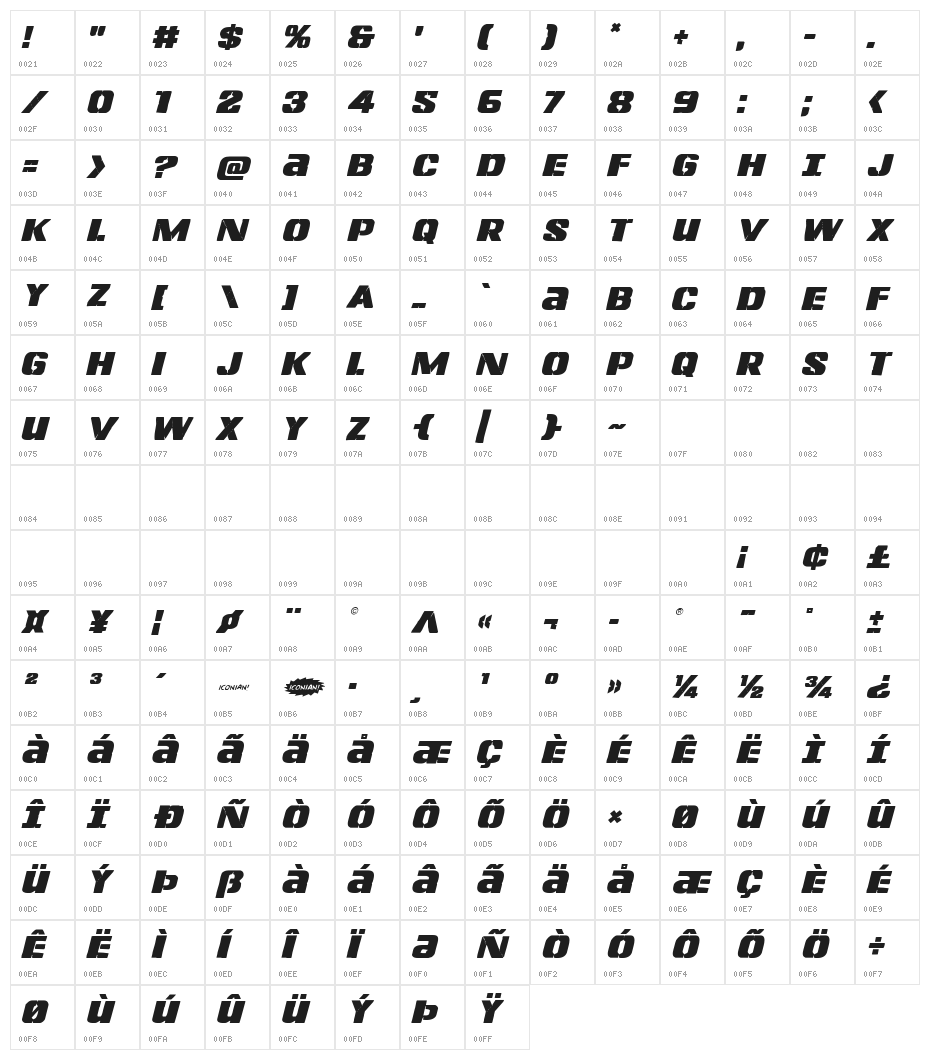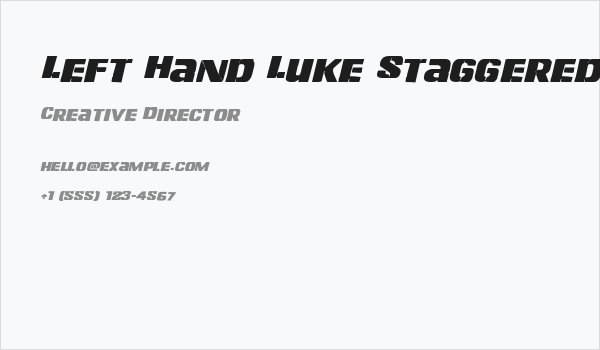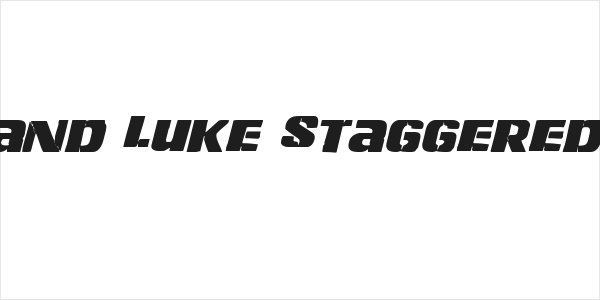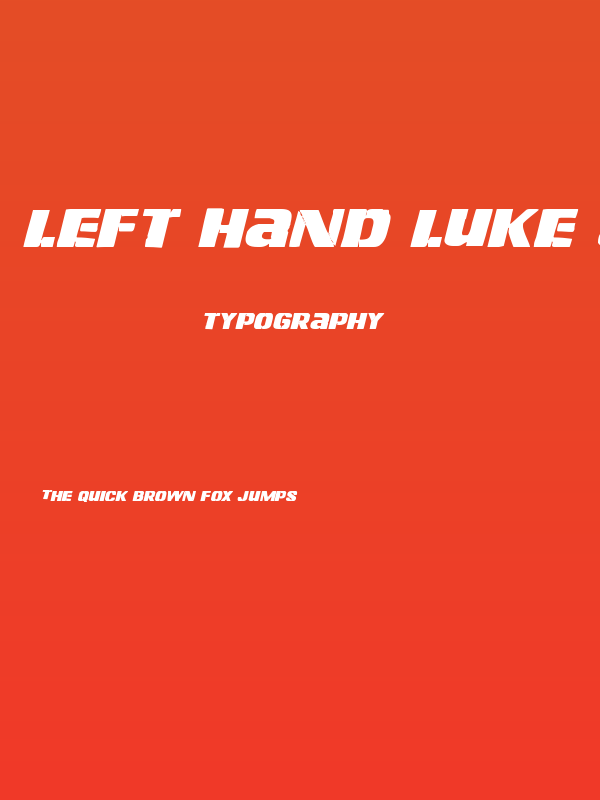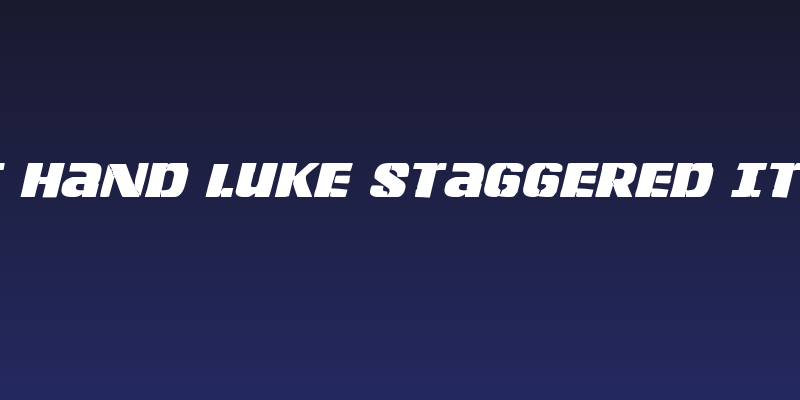
Left Hand Luke Staggered Italic Font
Left Hand Luke Staggered Italic Description
This font exhibits a bold and dynamic style with a staggered, italicized appearance. The characters are robust and convey a sense of movement and energy, making them stand out prominently. The design features sharp angles and a slightly distressed texture, adding a rugged and edgy feel. The uppercase and lowercase letters maintain a consistent style, while the numerals and special characters complement the overall aesthetic. This font is ideal for projects that require a strong visual impact and a modern, unconventional look.
Overall StyleModern, Edgy
Proposed ProjectsPerfect for branding, posters, album covers, and any design needing a bold statement.